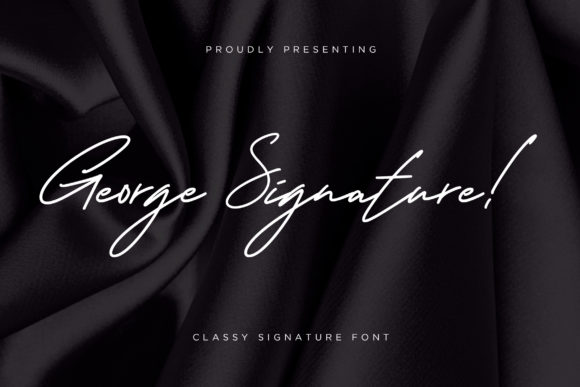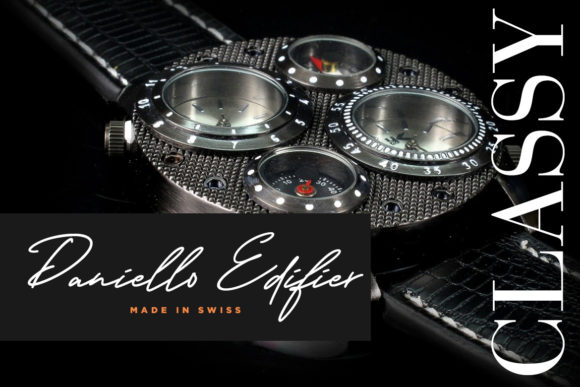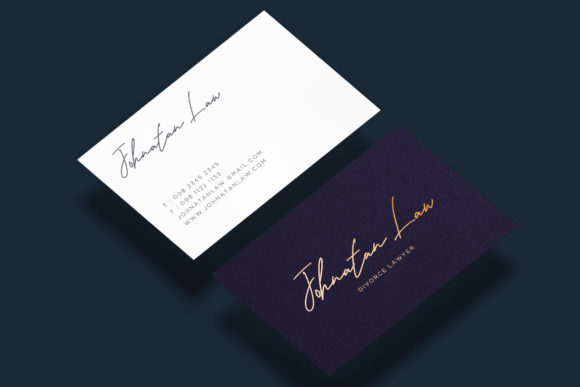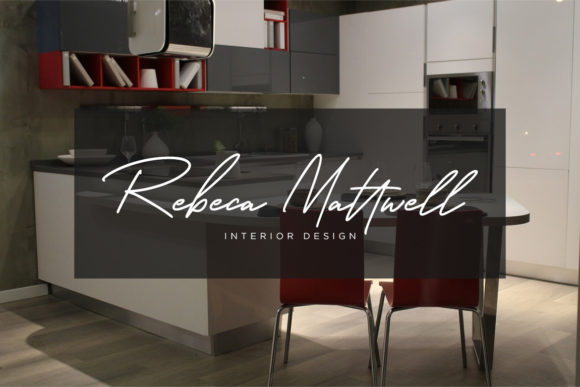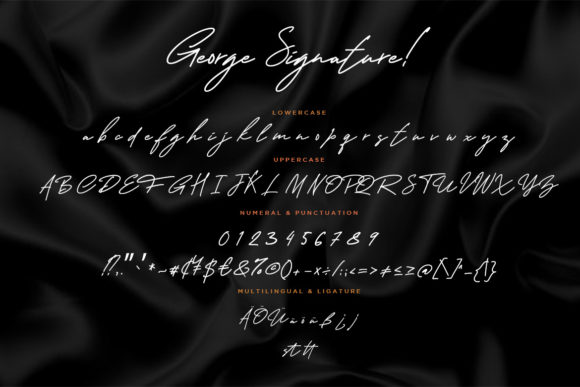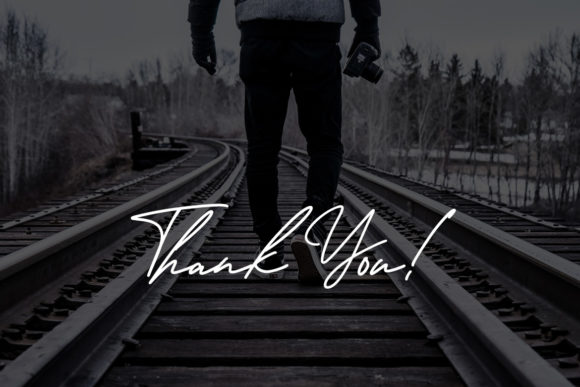
George Signature Font
About George Signature Font
George is a classic signature font with a bold and sophisticated vibe. Use it to add a touch of elegance to any design project!